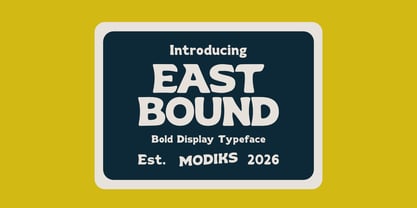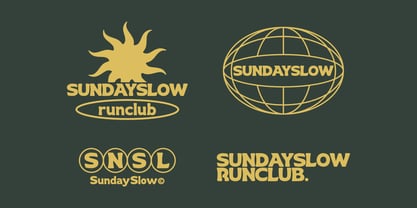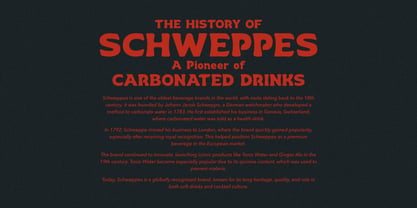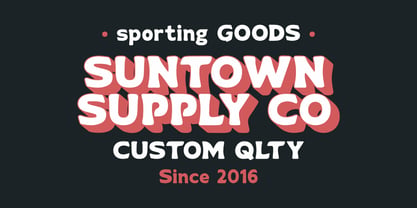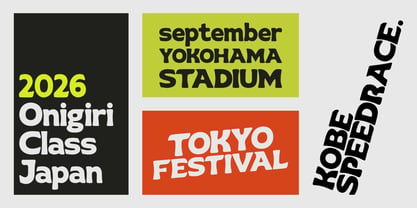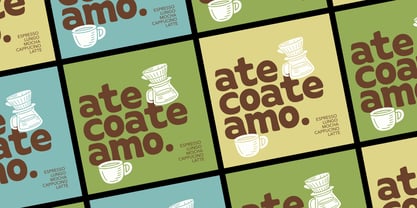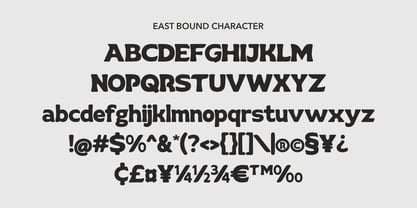
East Bound
by Modikstype
The East Bound Font Family was designed by Angga Monad and published by Modikstype. East Bound contains 1 styles.
East Bound is a bold and playful display typeface designed to bring energy, warmth, and character into your designs. With its chunky shapes, soft rounded edges, and retro-inspired personality, this font is perfect for eye-catching headlines and standout branding. Inspired by vintage signage, sports typography, and modern street style, East Bound delivers a strong visual presence while remaining friendly and approachable.
Designers: Angga Monad
Publisher: Modikstype
Foundry: Modikstype
Design Owner: Modikstype